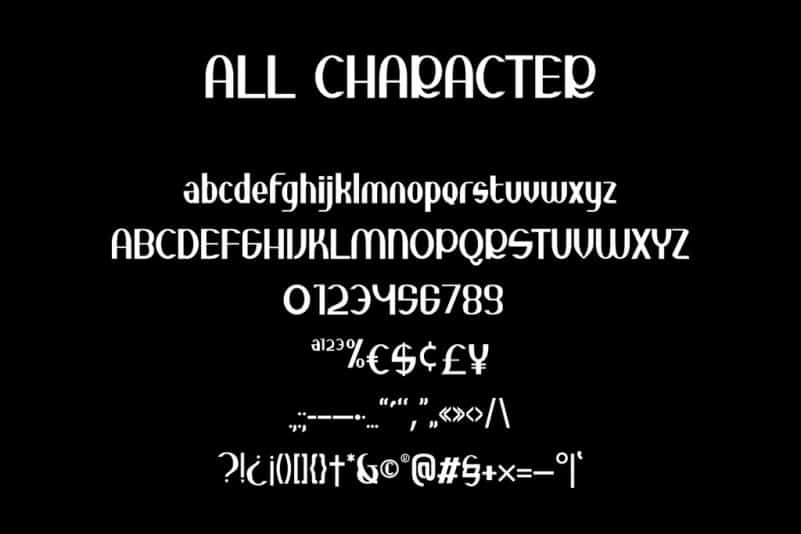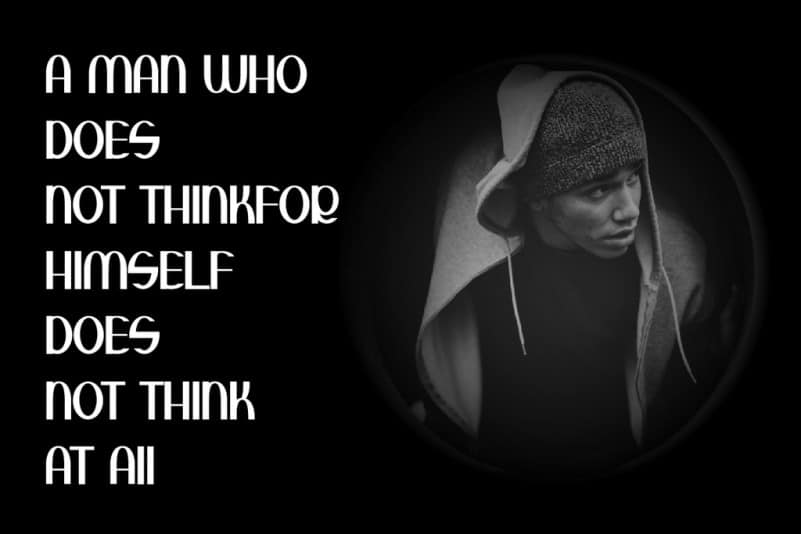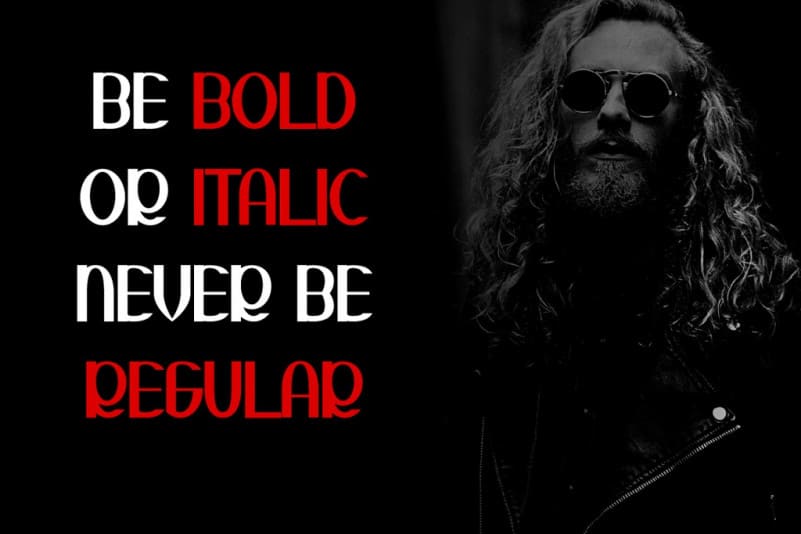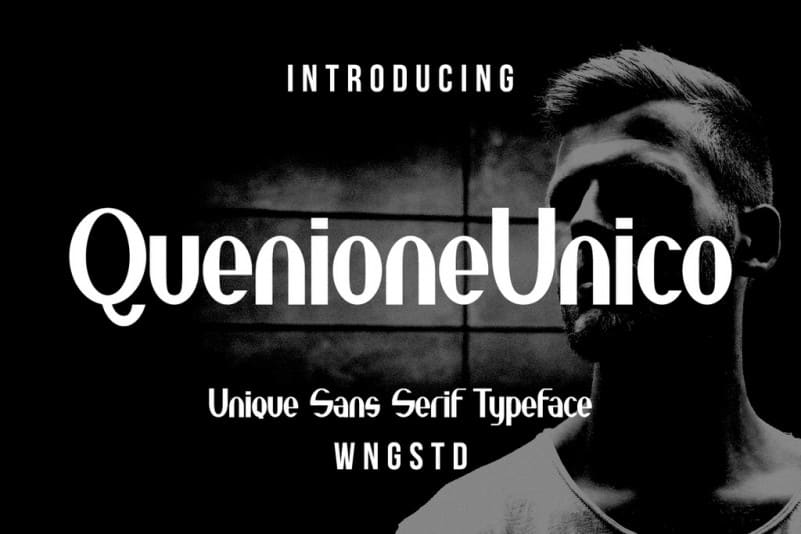
Quenione Unico Sans Serif Font is a classic and unique sans serif typeface with high contrast character. Made from font designer named WNGSTD. This font is perfectly suited for traditional media and the web. great for the crafter and graphic artists. compatible with all tools. its playfulness makes it great for creative project., be inspirational wall poster, or for communicating your brand.